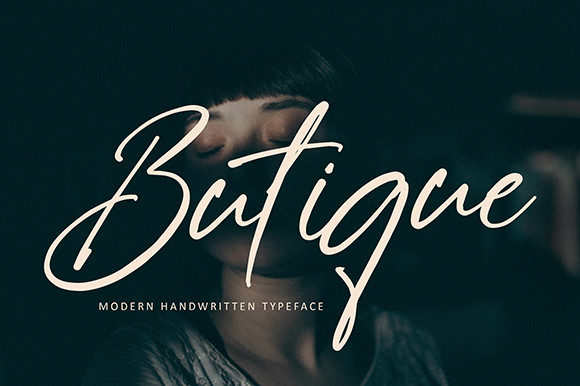
Step into the world of elegance and sophistication with Butique Font, an exquisite script font that will add a touch of class and distinction to your creative endeavors. This mesmerizing font exudes a captivating charm and a timeless appeal that is sure to elevate your designs to new heights.
With its sweeping curves, delicate ligatures, and an effortlessly graceful flow, Butique Font embodies the essence of refinement. It is perfectly suited for those seeking a font that reflects their individual flair and style. Let your words dance across the page with a font that whispers elegance and inspires admiration.
Whether you're crafting wedding invitations, designing logos, or adding a touch of charm to your social media posts, Butique Font is the perfect choice for those seeking a font that exudes sophistication. Its versatility extends to a wide range of creative projects, from fashion branding to editorial designs.
Dive into the world of Butique Font today and unlock the potential for creating designs that are both visually stunning and emotionally impactful. Experience the beauty of refined typography and allow your creativity to flourish.